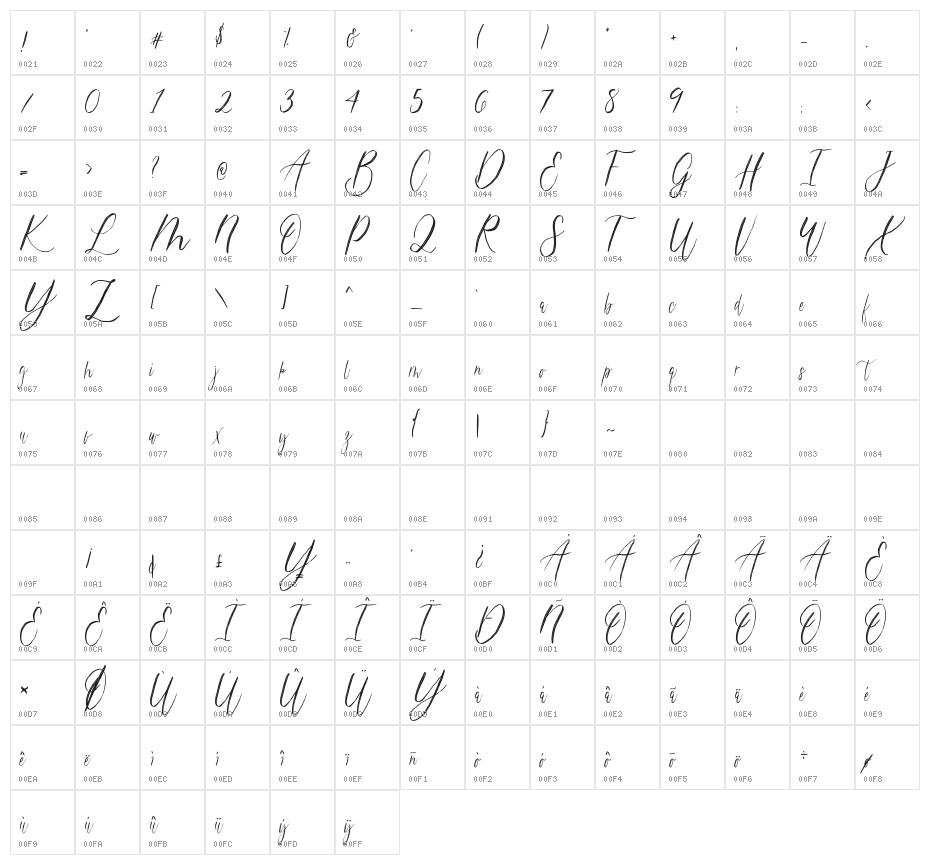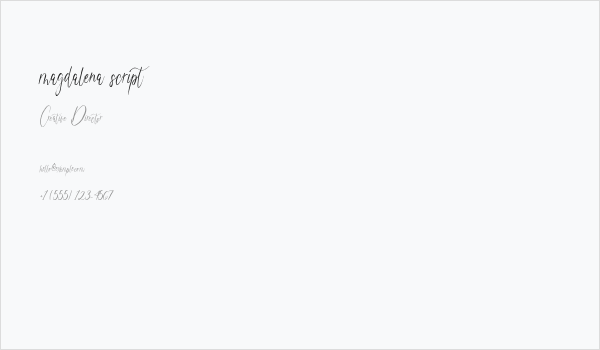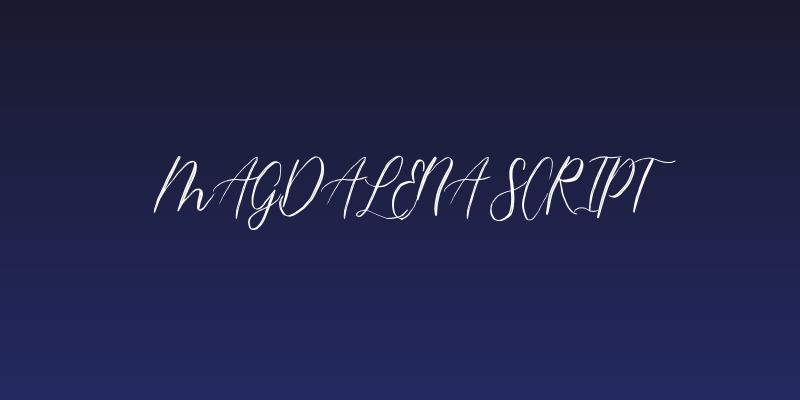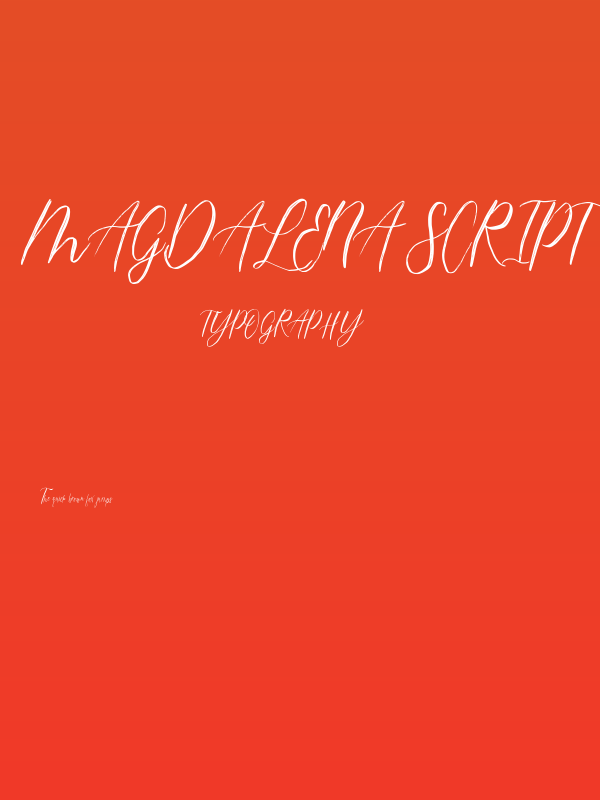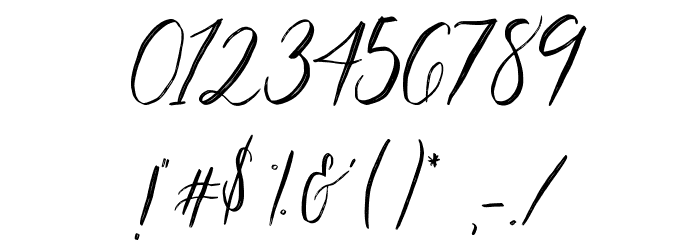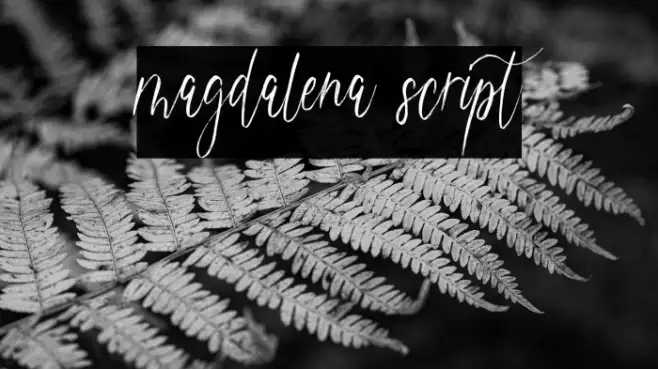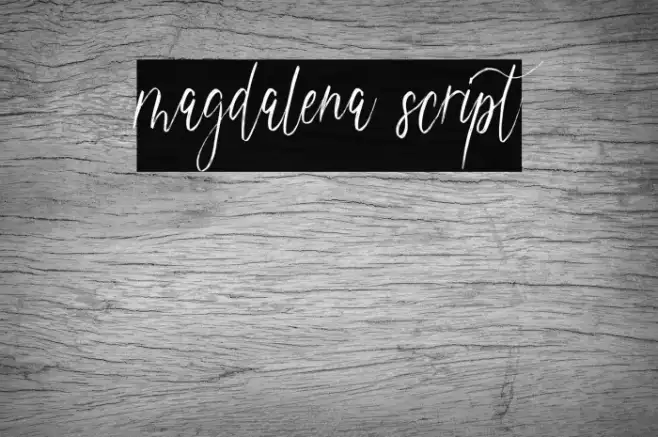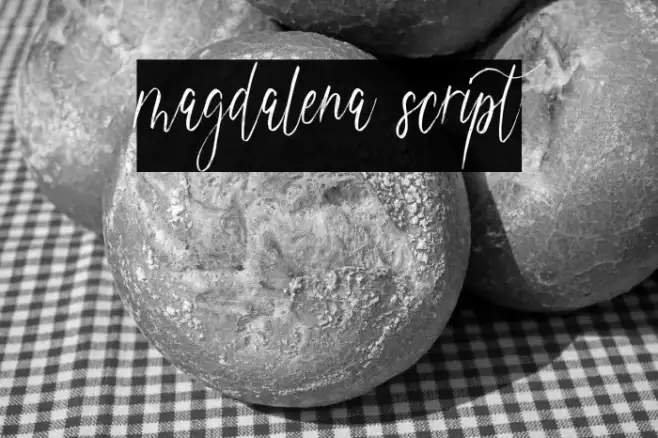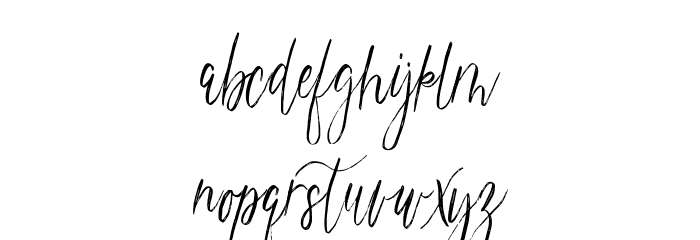
magdalena script Font
magdalena script Description
This elegant script font features a flowing, handwritten style with graceful curves and a natural, fluid motion. The uppercase letters are characterized by sweeping ascenders and descenders, giving them a sense of movement and sophistication. The lowercase letters maintain a consistent style, with delicate loops and connections that enhance the font's overall elegance. The numerals and special characters are designed to complement the letters, maintaining the same fluidity and style. This font is perfect for projects that require a touch of elegance and personal flair.